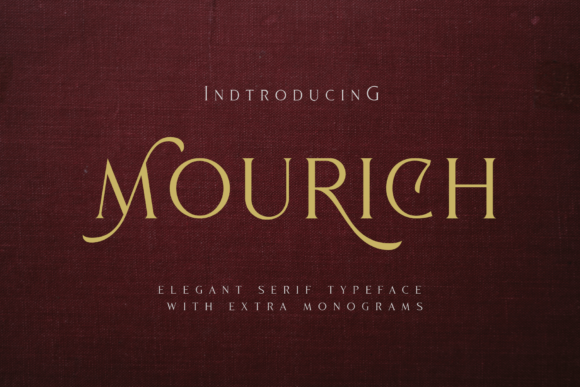
Behold Mourich, the exquisite serif font family designed to grace your digital canvas with timeless sophistication. Step into a realm of elegance and minimalism where your designs take center stage. With Mourich, every word, every line, every creation becomes a visual masterpiece, capturing the essence of sophistication and leaving an indelible mark on your audience.
Explore the realm of possibilities with Mourich's two captivating styles. Dive into the Classic style for a timeless allure that exudes effortless grace, or embrace the Bold style for a bolder statement that demands attention. Each style carries its own unique charm, uniting to offer a versatile range of expressions that adapt seamlessly to your design vision.
Journey through a world of elegance with Mourich, where simplicity unveils a symphony of visual delight. Its clean lines and refined curves evoke a sense of balance and harmony, inviting your audience to delve into the depths of your designs. Whether you're crafting logos, branding materials, or captivating social media graphics, Mourich's minimalist beauty empowers you to create designs that resonate with timeless appeal.
With Mourich, discover a font family that effortlessly complements any design project. Its versatility extends from elegant invitations and wedding stationery to corporate presentations and sleek website designs. Unleash your creativity and let Mourich guide you toward visual masterpieces that captivate and inspire.
Dare to embrace a font family that transcends trends and establishes a legacy of sophistication. Let Mourich elevate your designs to new heights of elegance, leaving an enduring impression that whispers of luxury and grace. Dive into the world of Mourich and experience the transformative power of a font family that breathes life into your creative endeavors.